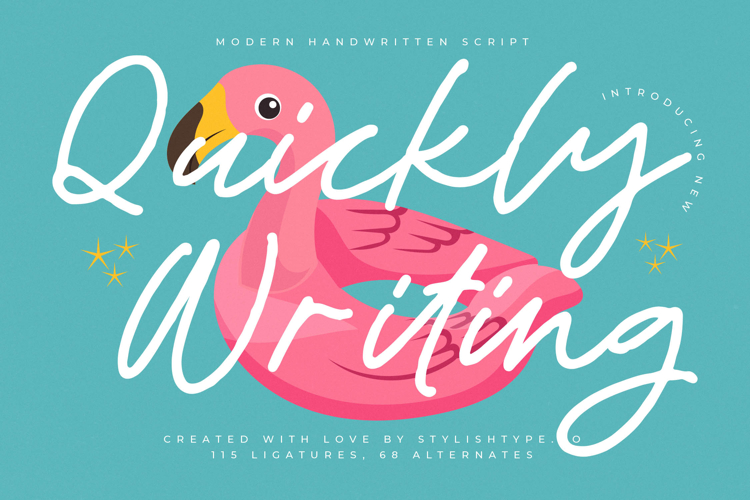
Quickly Writing - Quirky Handwritten Script
Quickly Writing is a modern handwritten script that blends casual charm with contemporary style. Its smooth strokes, rounded details, and natural handwritten flow make it an excellent choice for projects that need to feel approachable, stylish, and authentic. With 115 ligatures and 68 alternates, this font gives designers the freedom to create expressive and customized lettering compositions.
This typeface works beautifully in branding. Perfect for logos, product labels, boutique shops, lifestyle brands, and packaging, Quickly Writing communicates creativity and originality. Its handwritten style ensures that branding projects appear modern, authentic, and memorable, making it ideal for businesses that want to project .
In editorial and publishing, Quickly Writing adds a refreshing handwritten voice. Magazines, creative zines, journals, and book covers benefit from its organic rhythm and stylish curves. It creates editorial layouts that are visually engaging while remaining highly legible, ideal for lifestyle and creative publications.
For web typography, this handwritten script adapts seamlessly across blogs, websites, online stores, and social media platforms. Its casual yet polished design ensures that digital media projects feel approachable, stylish, and professional, connecting brands and creators with their audiences more .
Quickly Writing is also highly effective in advertising and marketing. From posters, promotional materials, and product campaigns to packaging and business cards, it captures attention with its handwritten energy. It ensures that advertising feels modern, approachable.